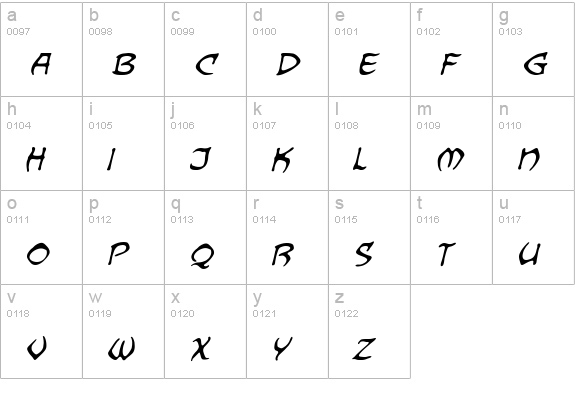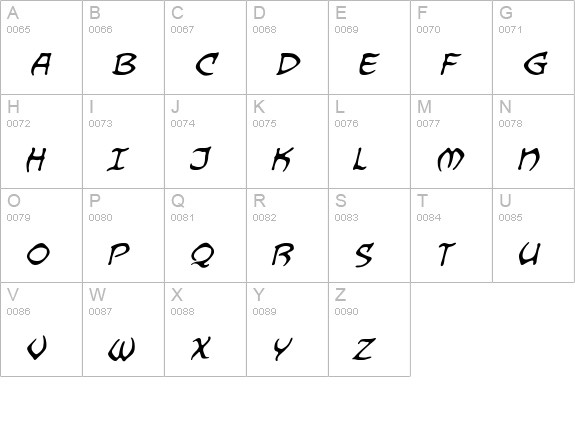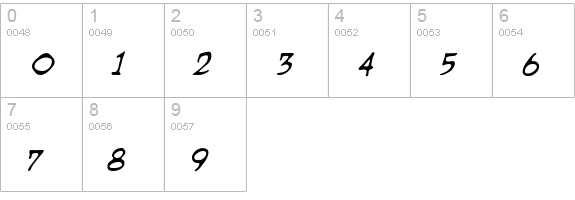
Dragonbones BB Italic Font Details
Dragonbones BB Italic is a distinctive, italic variant in the Dragonbones typeface family \xE2\x80\x94 well suited to design and typography projects.
Dragonbones BB Italic is a striking and dynamic font that exudes a sense of power and mystery. Its elegant and intricate design features bold, slanted letterforms with a unique flair that commands attention. The italic style adds a touch of sophistication and modernity to any project, making it perfect for headlines, titles, and branding. This font is free to download at FontsMarket.com, where you can easily access this eye-catching typeface to elevate your designs to the next level. With Dragonbones BB Italic, you can unleash your creativity and create visual masterpieces that captivate and inspire. Let this font breathe fire into your projects and set them apart from the rest.